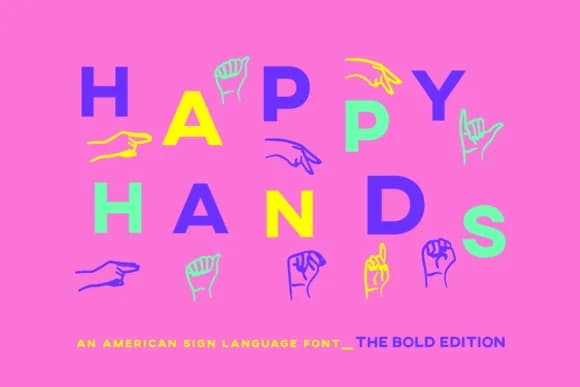
Imagine designing a printable ASL learning guide for a local school, or creating fundraiser materials for a deaf advocacy nonprofit. Happy Hands, designed by Inkclouddesign, is a dingbats font built entirely from hand gesture symbols, making it straightforward to add visual representation wherever communication and accessibility matter most.
This symbol typeface works well for specific applications: ASL alphabet reference materials, educational flashcards for sign language students, charity event graphics promoting deaf awareness, and accessible communication signage. Each character maps to a hand shape, hand position, or gesture, giving educators and designers a direct way to illustrate communication concepts without needing illustrations or clipart. You get the complete ASL alphabet plus corresponding numbers, letting you spell out messages and create labelled reference materials without switching fonts.
What makes this font work is simplicity paired with intent. Type your message and the hand shapes carry meaning, whether that's on printed fundraiser flyers, digital social media graphics, or Etsy product listings for ASL teaching resources. Schools use it for classroom posters, nonprofits rely on it for awareness campaigns, and craftspeople appreciate its clarity at any size. Grab Happy Hands from Creative Fabrica to add visual literacy to your next design.